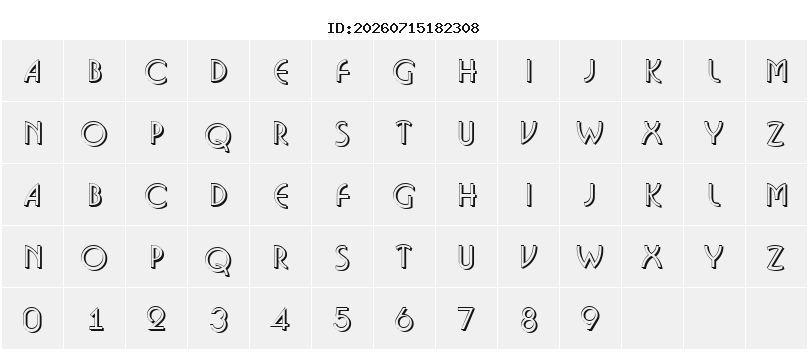
a_BosaNovaSh Preview
• Font Name: a_BosaNovaSh
• Full Font Name: a_BosaNovaSh
About a_BosaNovaSh.ttf
a_BosaNovaSh.ttf is a modern, elegant sans-serif font designed for ultimate readability and visual harmony. Perfect for branding, headlines, web design, and print materials.